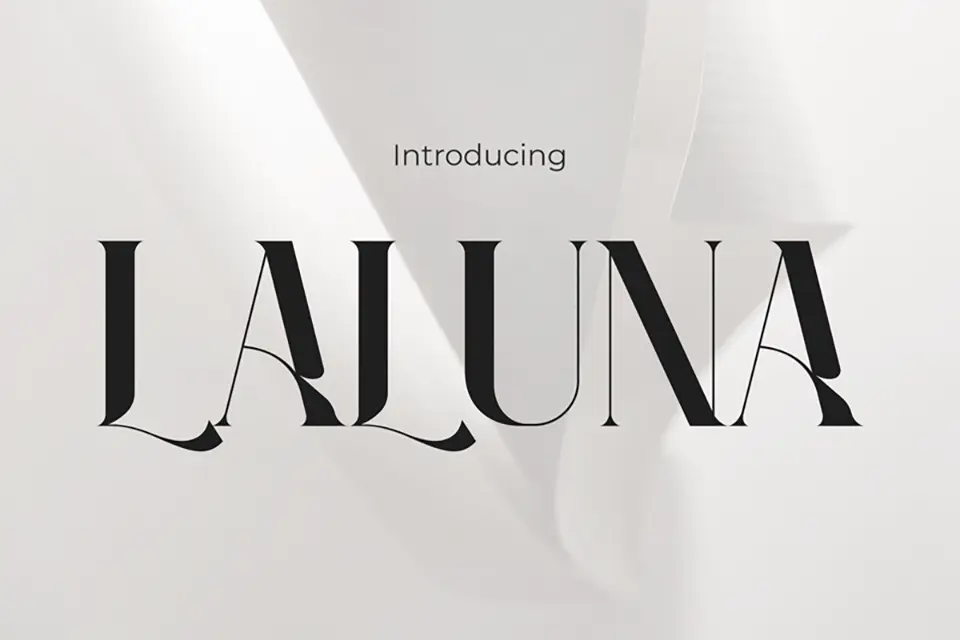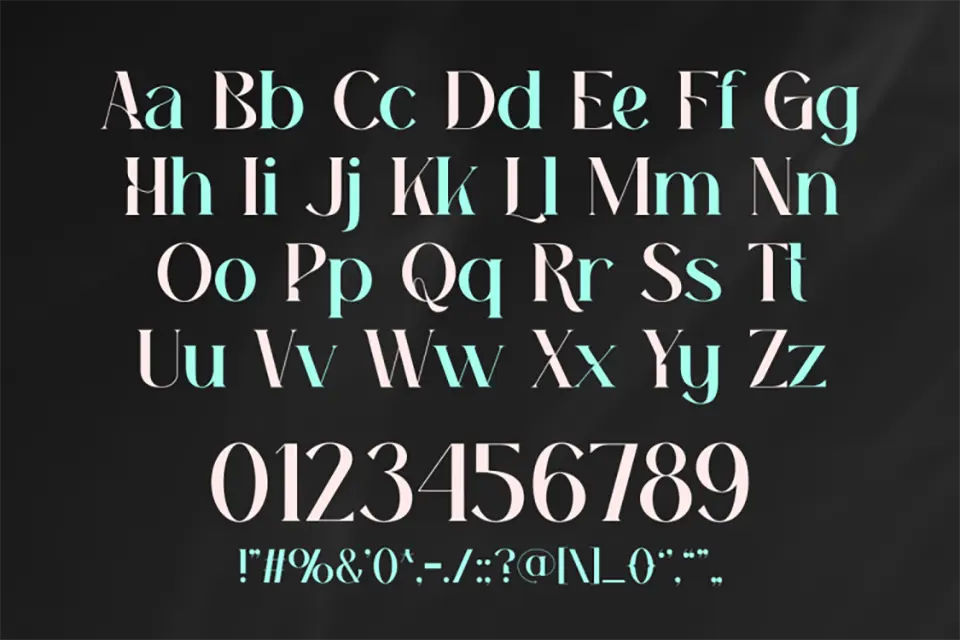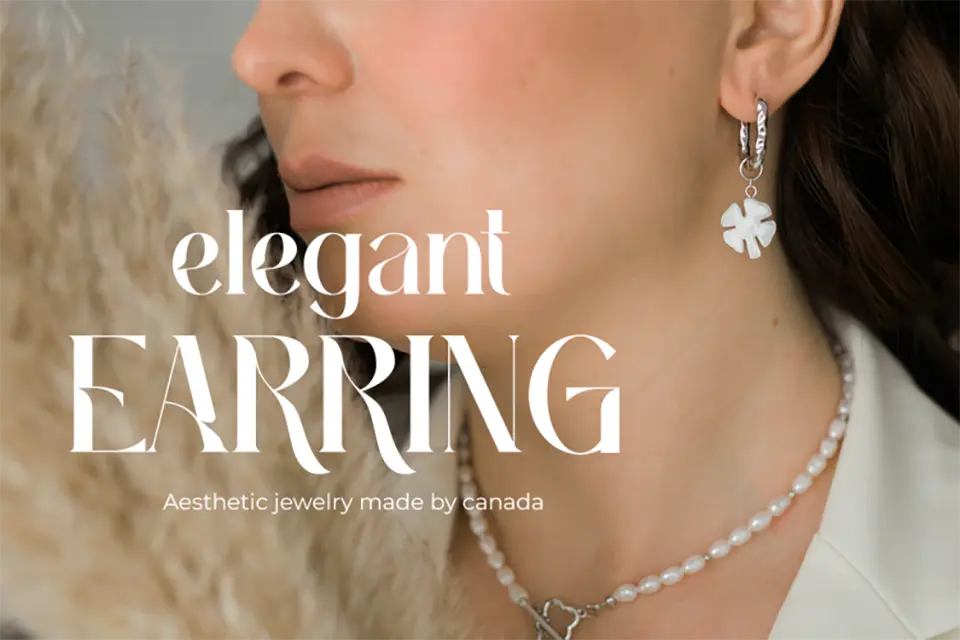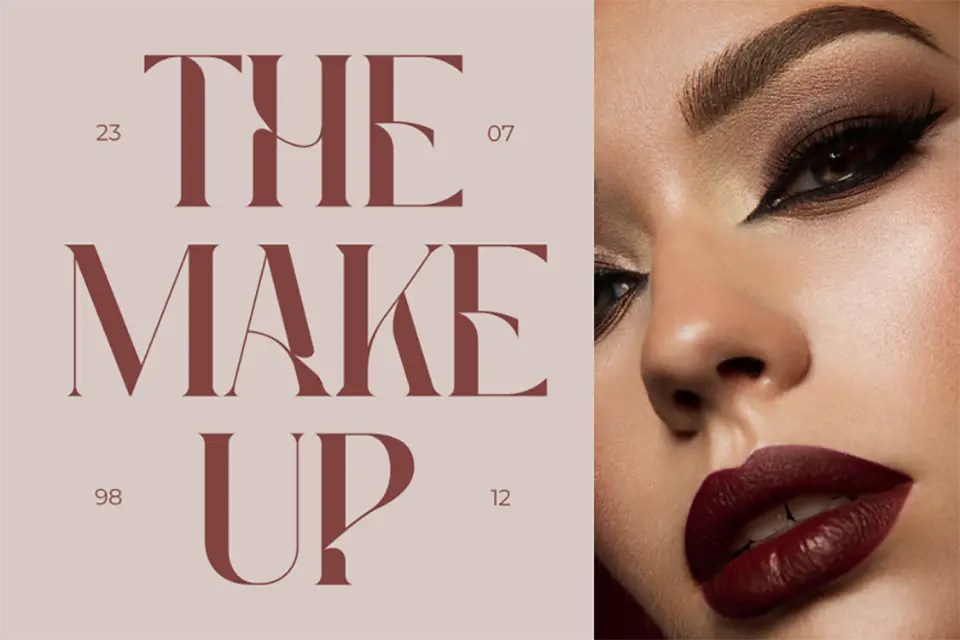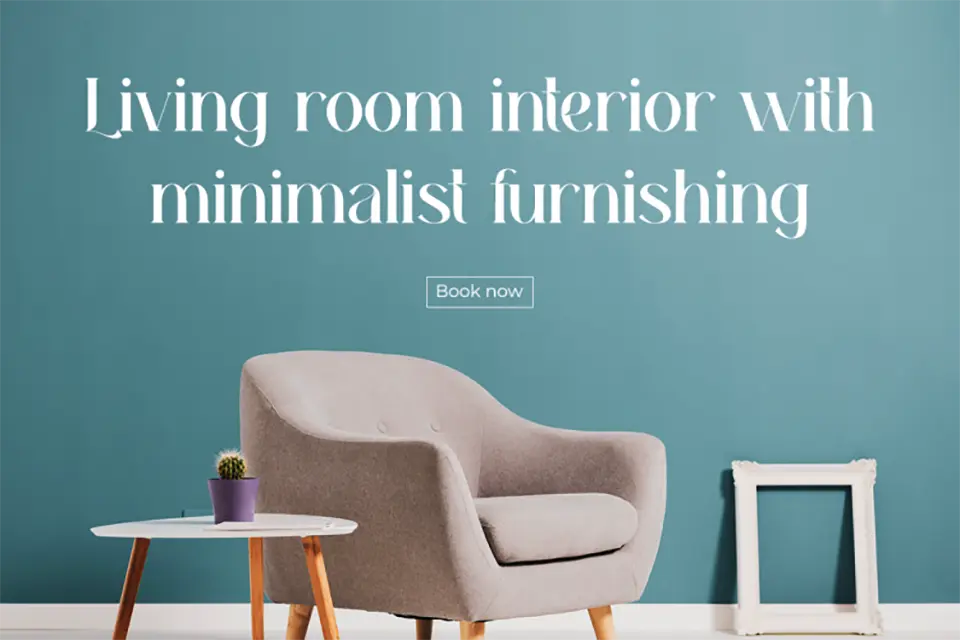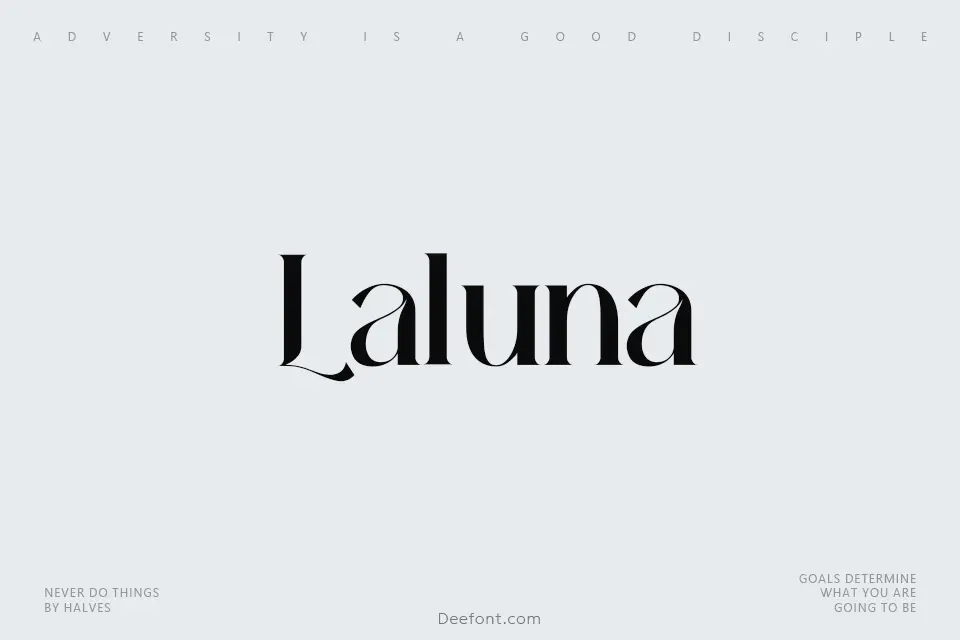
Laluna Font
Laluna Font is a stunning serif typeface that blends graceful curves with sharp, modern lines. As a result, its unique character exudes elegance, making it perfect for high-end branding and sophisticated projects. Furthermore, the refined details and balanced letterforms help it stand out in both digital and print designs. LALUNA offers a sophisticated presence that can elevate the visual identity of any project, ensuring it makes a lasting impression on audiences.
In addition, the font includes uppercase and lowercase letters, numerals, punctuation marks, and multilingual support. This ensures flexibility for various creative needs, whether you’re working on a global campaign or localizing a brand. Moreover, its bold serifs and subtle flourishes make it ideal for headlines, logos, and editorial layouts. Thus, its clean, stylish design adapts effortlessly to both minimalist and elaborate aesthetics, giving it a unique ability to complement a wide range of visual styles and themes.
Instagram Font LALUNA, therefore, delivers a luxurious, timeless look. It’s perfect for wedding invitations, brand identities, or social media content. This font elevates projects with sophistication, offering versatility for fashion, beauty, and more. Whether you’re creating promotional materials, personal branding, or exclusive event collateral, LALUNA is a go-to choice for projects that demand elegance.